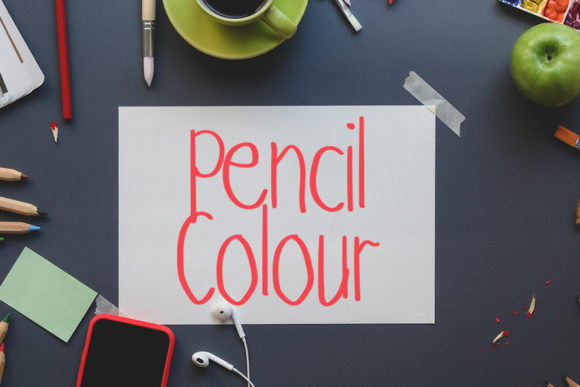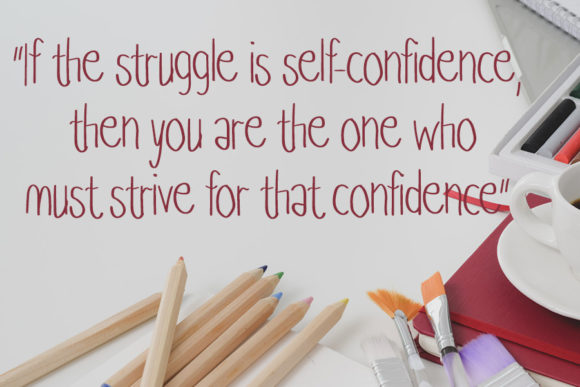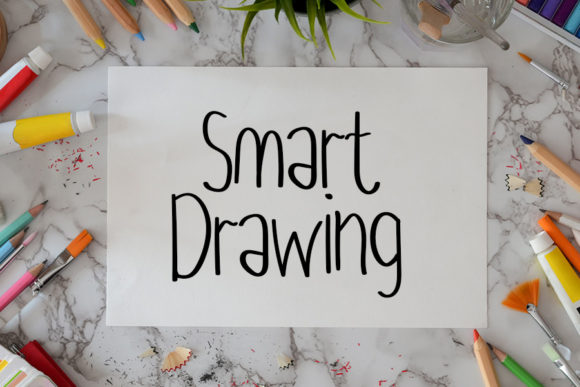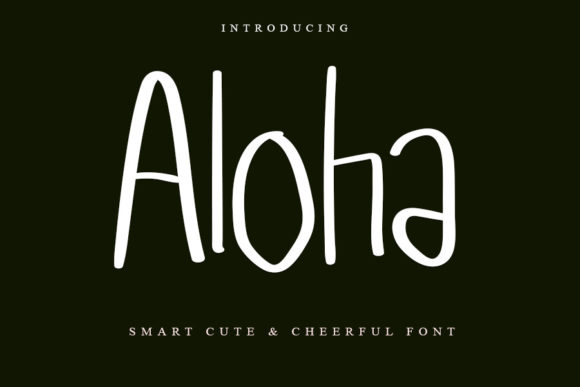
The Aloha Font: A Designer’s New Best Friend
I’ll never forget the time I was working on a project for a client who needed a custom name tag design. I had spent hours browsing through font libraries, but nothing seemed quite right. The fonts were either too ornate, too bland, or just plain unreadable. That’s when I stumbled upon the Aloha font. With its simple, clear, and well-spaced handwritten style, it was love at first sight! ✨
The Aloha font is described as a simple, clear, and well-spaced handwritten font, perfect for magazine titles, name tags, labels, and anything else that needs to be easily readable. In this article, we’ll dive into the world of Aloha, exploring its features, how to use it, and some similar fonts you might love.
An Honest Review of Aloha Font
What I Love About Aloha Font
• ✨ Readability: The Aloha font is incredibly easy to read, making it perfect for body text, headings, and titles.
• ✅ Versatility: Its simple style makes it suitable for a wide range of design projects, from modern and minimalist to playful and creative.
• 💫 Aesthetics: The font’s neat and well-spaced style gives it a clean and professional look that’s hard to find in handwritten fonts.
While Aloha is an amazing font, it’s not perfect. Here are a few things to keep in mind:
• 🤔 Limited character set: Some users have reported that the font lacks certain characters or glyphs, which might limit its use in certain projects.
• ⚠️ Not ideal for body text: While Aloha is great for headings and titles, it might not be the best choice for long blocks of body text.
The Story Behind Aloha Font
The Aloha font was designed by a team of creatives who wanted to create a simple, yet elegant handwritten font that’s perfect for a wide range of design projects. Inspired by the beauty of the Hawaiian islands, the font’s name “Aloha” reflects the warm, welcoming spirit of the place. While we can’t confirm the exact story behind the font, it’s clear that the designers aimed to create a font that’s both easy to read and visually appealing.
Author Intana Type
Q: What is the Aloha font best used for?
A: The Aloha font is perfect for designs that need a simple, yet elegant handwritten look, such as magazine titles, name tags, labels, and more.